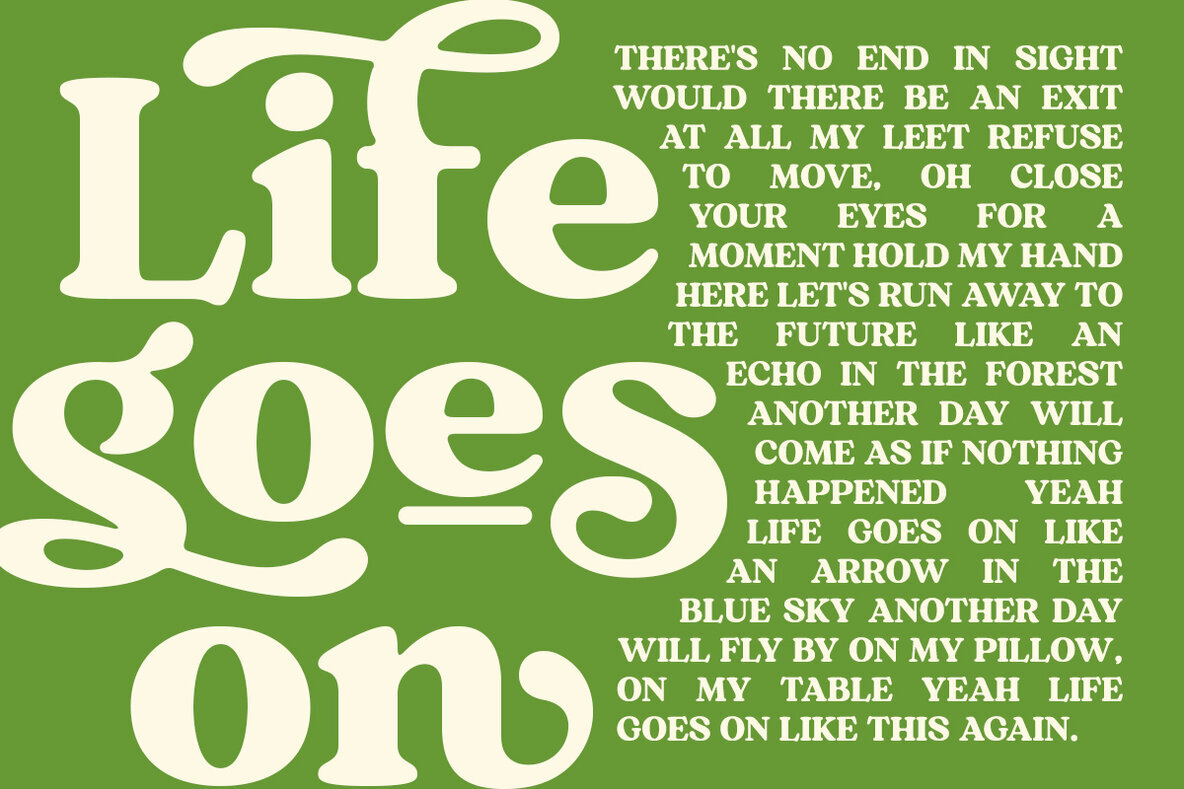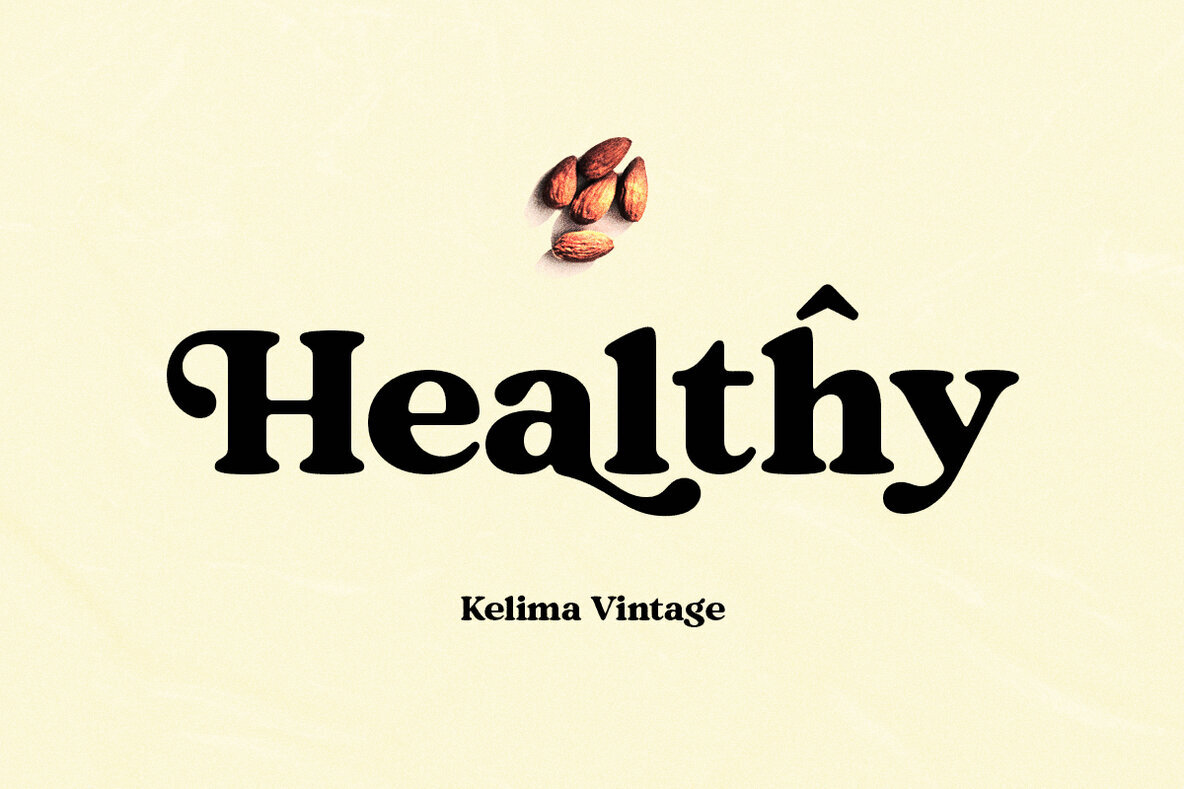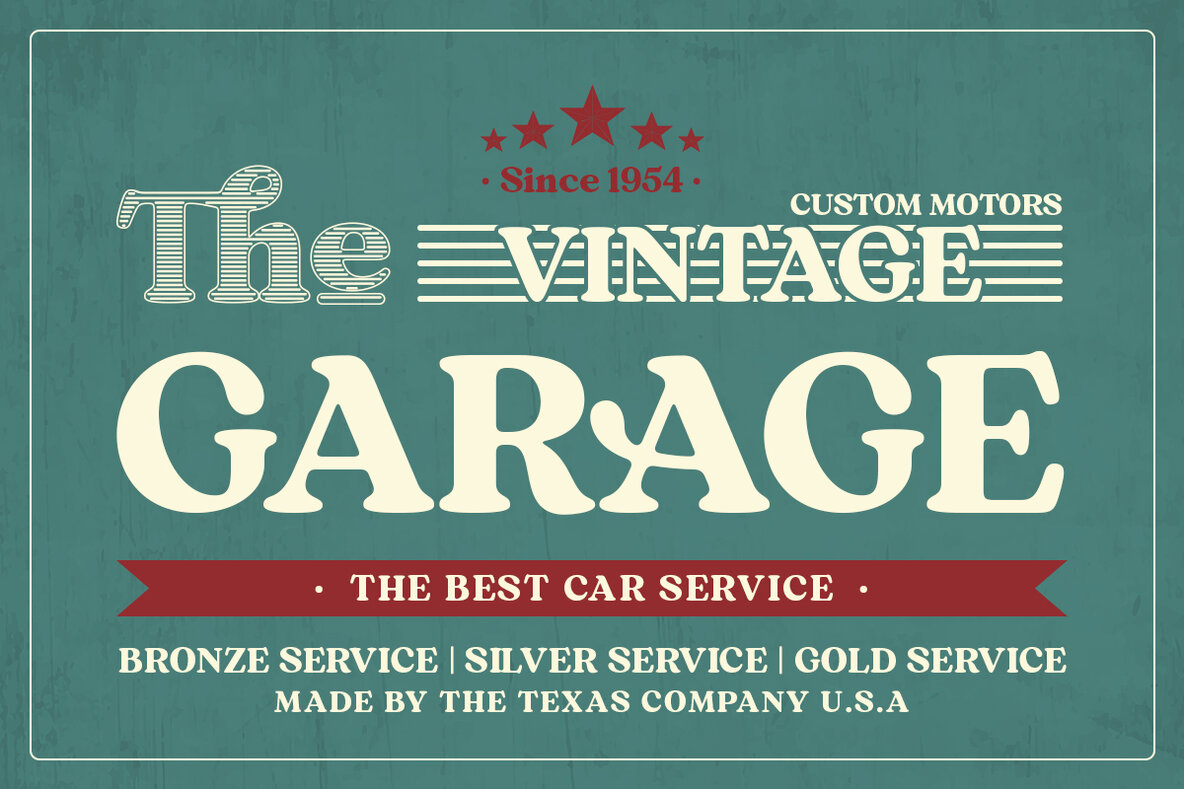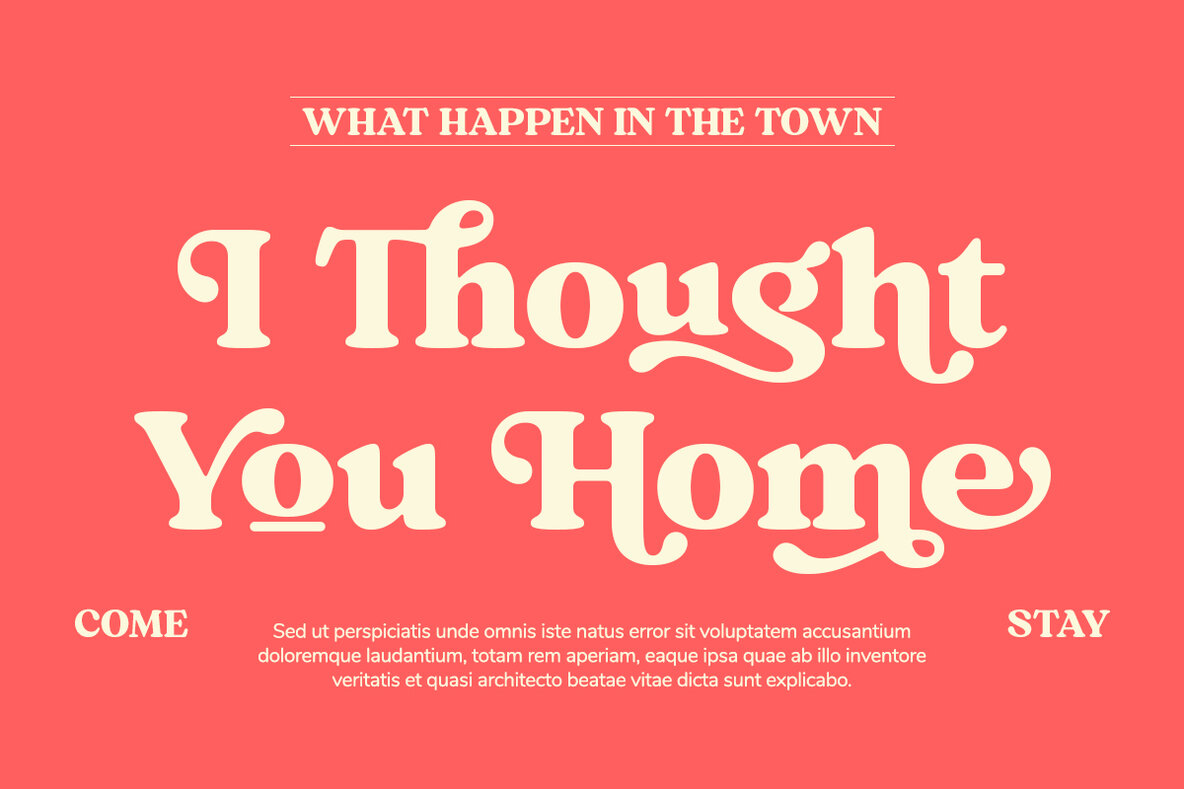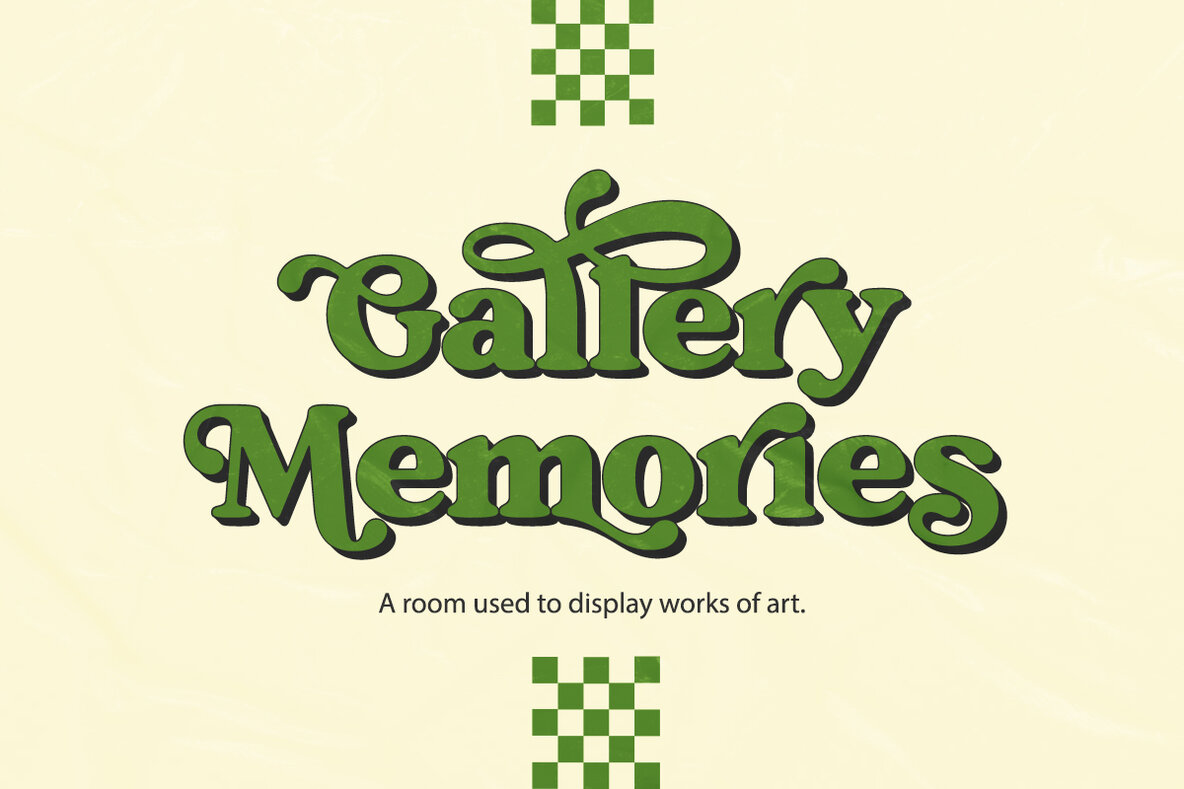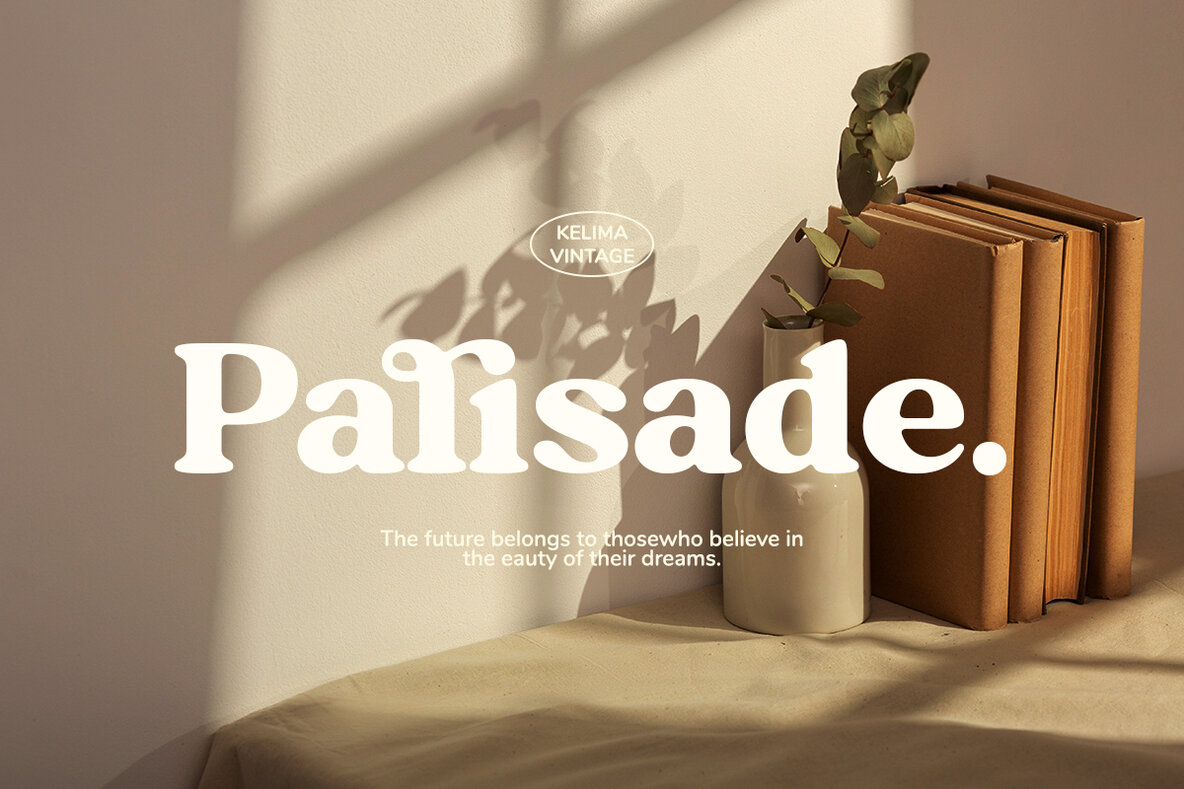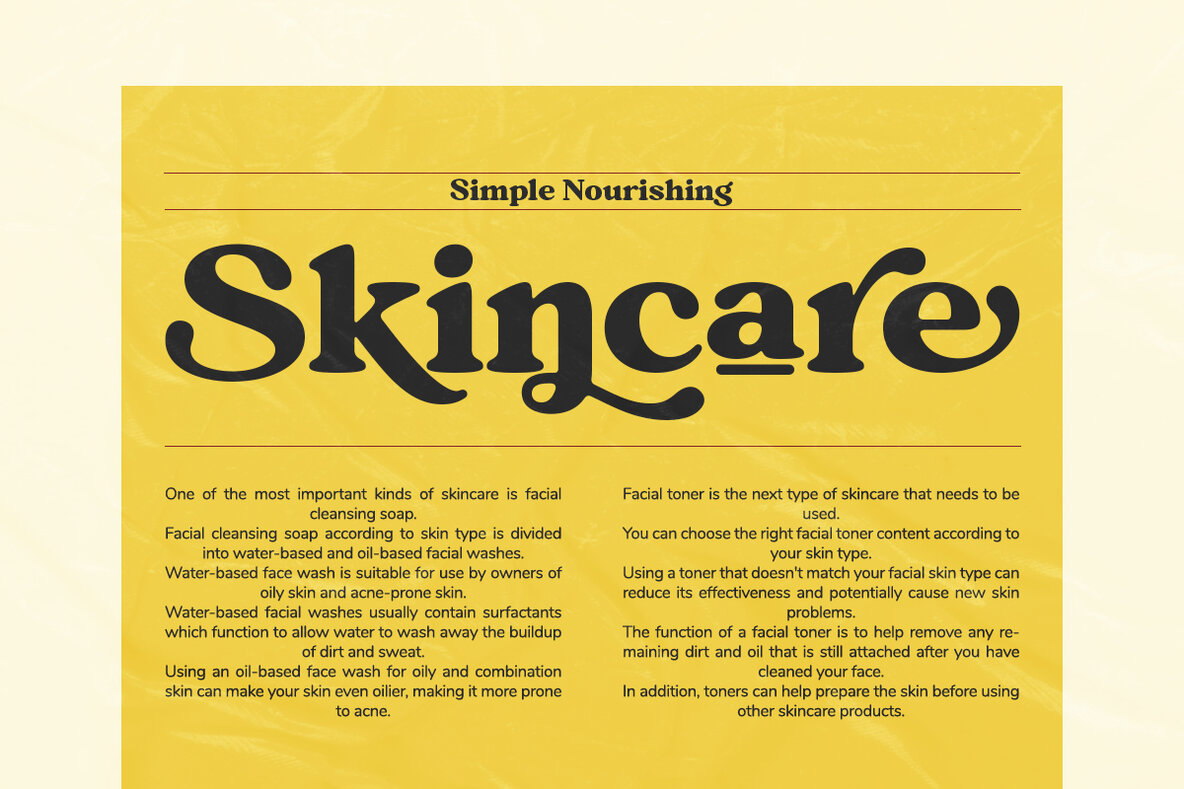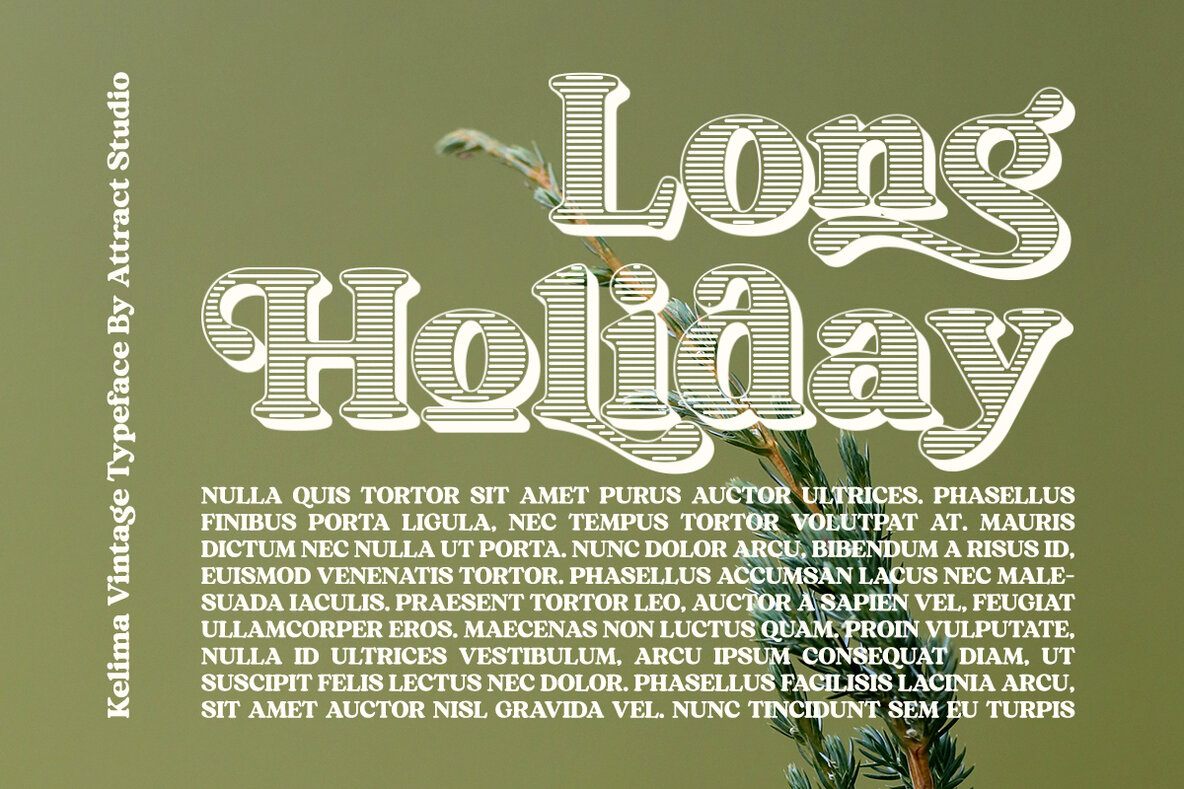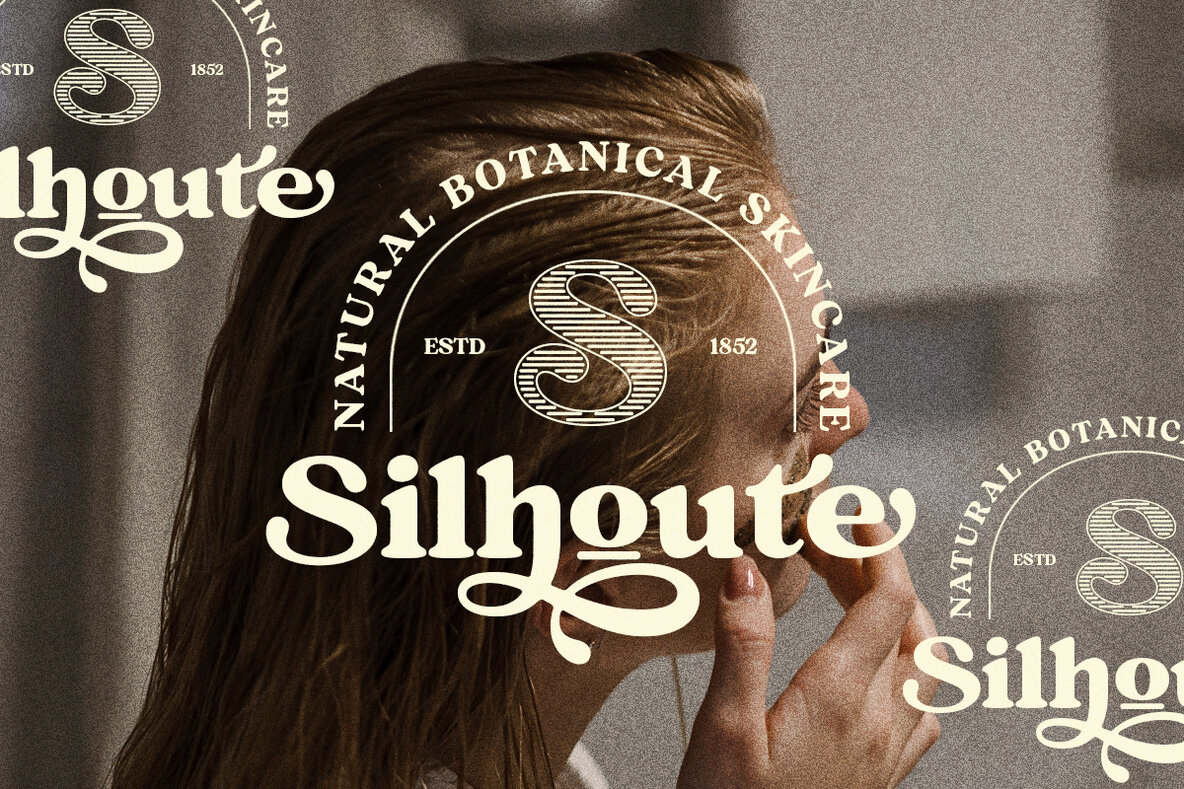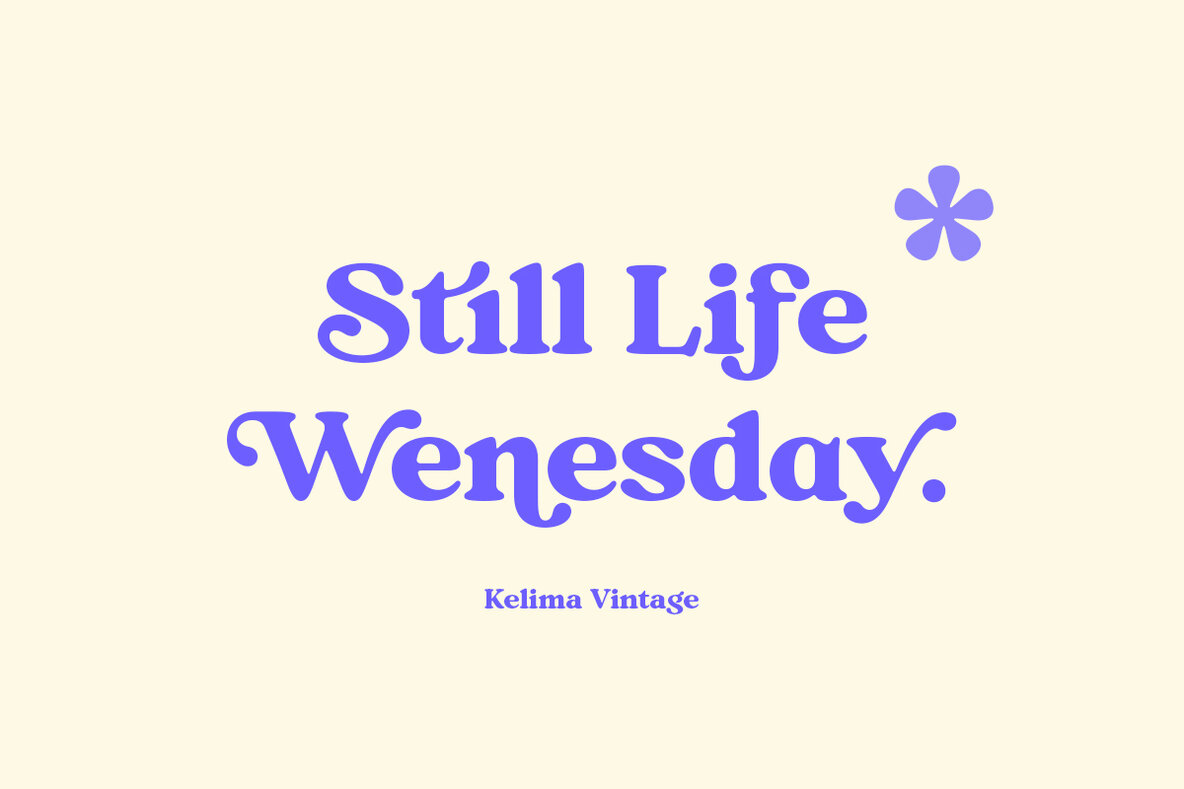
Kelima Vintage Font
Kelima Vintage is a serif font made from typography that was familiar in the 60s and 70s. Which results in a design with a modern and fresh taste. Kelima Vintage are released in 6 mixable weights to help you work on your best projects. Also available are Ligature and Alternate styles in the OpenType feature which offer a number of different characters that give your logo or business card a unique look. Files included: